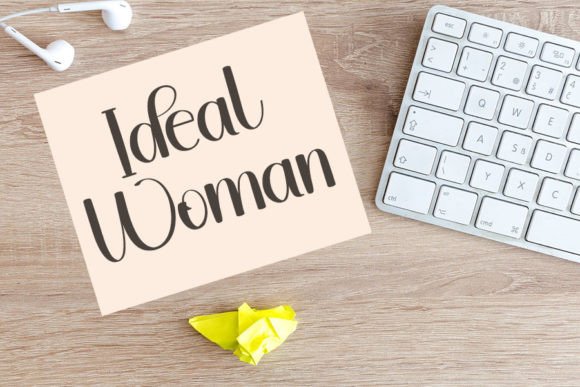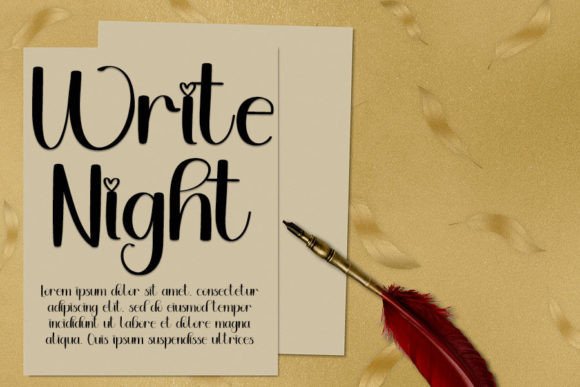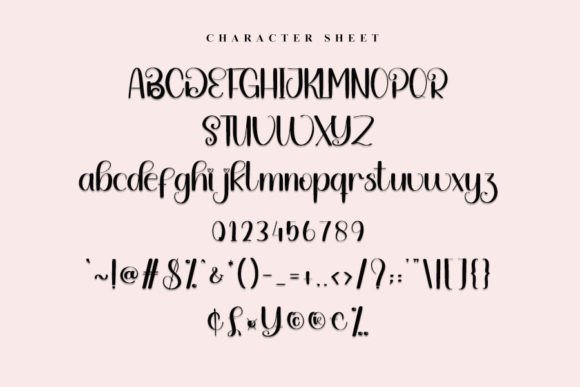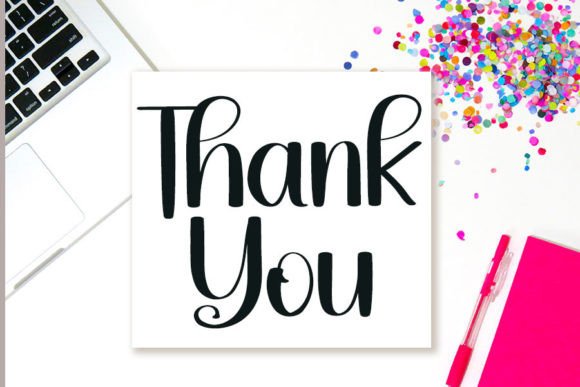
The Magic of the Christmas Season in Every Letter
As the holiday season approaches, I find myself lost in a sea of twinkling lights, festive decorations, and the sound of jingling bells. But amidst all the chaos, there’s something that sparks my creativity – the beauty of handwritten letters, reminiscent of a bygone era. It’s a feeling that transcends time and space, transporting me to a world where elegance and charm reign supreme.
Enter the Christmas Holidays Font, a stunning handwritten font that embodies the essence of this timeless classic calligraphy. With its contemporary atmosphere and impeccable form, this font is the perfect addition to any design project seeking to evoke a sense of sophistication and refinement. Whether you’re creating a holiday card, a festive menu, or a seasonal advertisement, the Christmas Holidays Font will add a touch of elegance and class that’s sure to impress.
- Unique Characteristics: The font features a festive and playful design, with intricate details and ornaments that evoke the spirit of Christmas.
- Characters and Glyphs: The font includes a wide range of characters, including uppercase and lowercase letters, numbers, punctuation marks, and special characters, as well as holiday-themed symbols and icons.
Designer Review: Christmas Holidays Font
I’ve worked with a variety of fonts over the years, and the Christmas Holidays Font is a decent addition to the holiday-themed collection. Here are some of its strengths and weaknesses:
What Works Well: ✨
- The font’s festive feel is perfect for holiday-themed projects, such as Christmas cards, gift tags, or social media posts.
- The font’s bold and playful style makes it ideal for headings and titles.
- The font’s legibility is good, making it suitable for body text.
Limitations: ⚠️
- The font’s design is a bit generic and lacks originality, making it blend in with other holiday-themed fonts.
- The font’s character set is limited, which may cause issues when using special characters or non-English text.
Overall, the Christmas Holidays Font is a solid, if unremarkable, choice for holiday-themed projects. While it may not stand out from the crowd, it’s a reliable option that gets the job done. With a bit more originality and attention to detail, this font could be truly special.